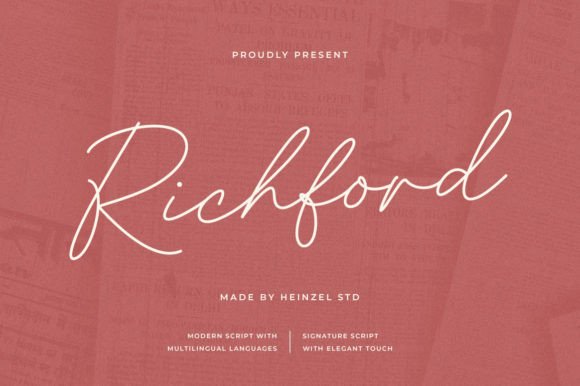
Introducing Richford Script, an elegant and modern signature font from the creative genius of Heinzel Std. Dive into a realm of expression with this captivating script, designed to add an exquisite charm to your digital creations. Richford is a captivating script font that exudes elegance and sophistication. With its captivating curves and stylish charm, Richford is the perfect choice for adding a touch of class and uniqueness to your designs.
Step into a world of creativity where your imagination knows no bounds. Richford's enchanting style lends itself seamlessly to a wide array of projects, from heartfelt wedding invitations to heartfelt thank you cards. Make your words dance and your designs shimmer with this enchanting script. Let the smooth flow of Richford's characters take you on a journey of artistic expression.
Unlock the potential of your Cricut 2.0 Pen with Richford, the ultimate font for unleashing your creativity. With its delicate strokes and elegant curves, Richford adds a touch of magic to every project. Create personalized gifts, stunning home décor, or eye-catching marketing materials that will leave a lasting impression.
Whether you're a seasoned designer or just starting your creative journey, Richford is the font that will elevate your work to new heights. Transform your ideas into beautiful realities with Richford, the font that captures the essence of modern elegance.